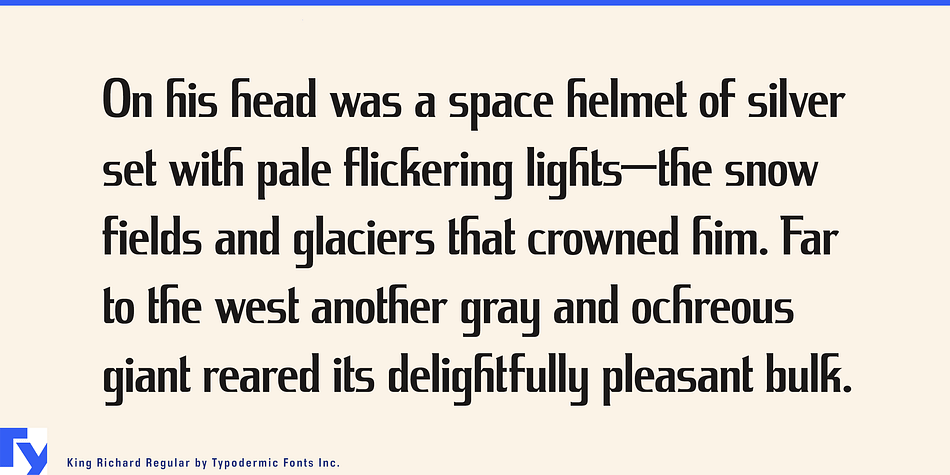
King Richard is a display serif font family. This typeface has two styles and was published by Typodermic Fonts Inc.
King Richard is a flare serif American automotive display typeface from the 1960s. Plymouth is a marque that is connected with the iconic American muscle car. King Richard distills that high-octane energy into a typeface with dynamic vitality that will fuel your message. It is available in both upright and italic styles, but it always appears best in italics. Most Latin-based European writing systems are supported, including the following languages. Afaan Oromo, Afar, Afrikaans, Albanian, Alsatian, Aromanian, Aymara, Bashkir (Latin), Basque, Belarusian (Latin), Bemba, Bikol, Bosnian, Breton, Cape Verdean, Creole, Catalan, Cebuano, Chamorro, Chavacano, Chichewa, Crimean Tatar (Latin), Croatian, Czech, Danish, Dawan, Dholuo, Dutch, English, Estonian, Faroese, Fijian, Filipino, Finnish, French, Frisian, Friulian, Gagauz (Latin), Galician, Ganda, Genoese, German, Greenlandic, Guadeloupean Creole, Haitian Creole, Hawaiian, Hiligaynon, Hungarian, Icelandic, Ilocano, Indonesian, Irish, Italian, Jamaican, Kaqchikel, Karakalpak (Latin), Kashubian, Kikongo, Kinyarwanda, Kirundi, Kurdish (Latin), Latvian, Lithuanian, Lombard, Low Saxon, Luxembourgish, Maasai, Makhuwa, Malay, Maltese, Māori, Moldovan, Montenegrin, Ndebele, Neapolitan, Norwegian, Novial, Occitan, Ossetian (Latin), Papiamento, Piedmontese, Polish, Portuguese, Quechua, Rarotongan, Romanian, Romansh, Sami, Sango, Saramaccan, Sardinian, Scottish Gaelic, Serbian (Latin), Shona, Sicilian, Silesian, Slovak, Slovenian, Somali, Sorbian, Sotho, Spanish, Swahili, Swazi, Swedish, Tagalog, Tahitian, Tetum, Tongan, Tshiluba, Tsonga, Tswana, Tumbuka, Turkish, Turkmen (Latin), Tuvaluan, Uzbek (Latin), Venetian, Vepsian, Võro, Walloon, Waray-Waray, Wayuu, Welsh, Wolof, Xhosa, Yapese, Zapotec Zulu and Zuni.